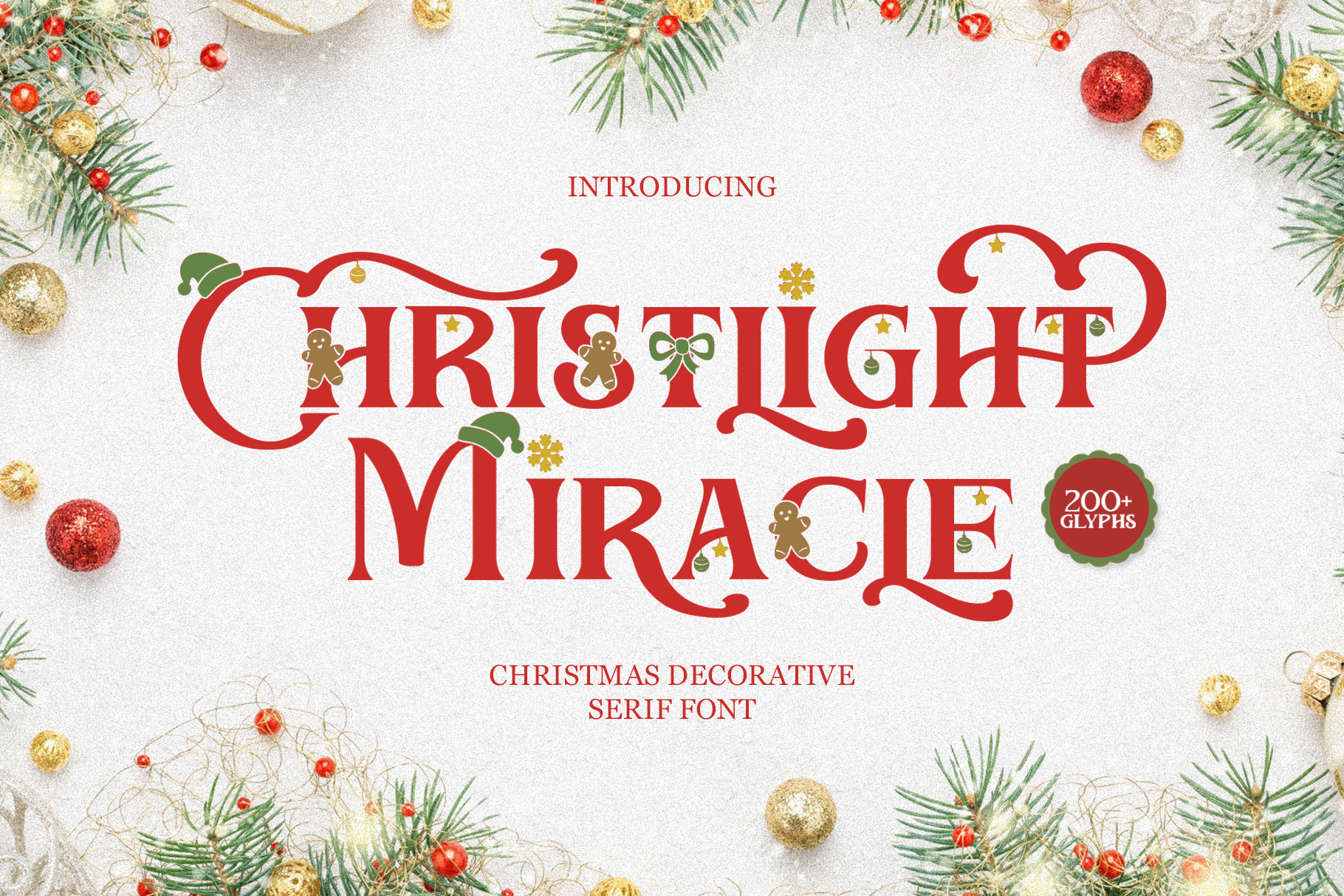
Christlight - Decorative Serif Font
Christlight - Christmas Display Font
Festive Christmas display font with playful, hand-drawn elements, perfect for holiday cards, invitations, posters, and seasonal branding.
- Uppercase & Lowercase Characters: Fully designed for a complete typographic experience
- Numerals & Punctuation: All the numbers and punctuation marks you need for any design task
- Multilingual Support: Includes characters for multiple languages, ensuring global usability
- High-Quality Design: Each font is crafted with attention to detail, ensuring a polished and professional look